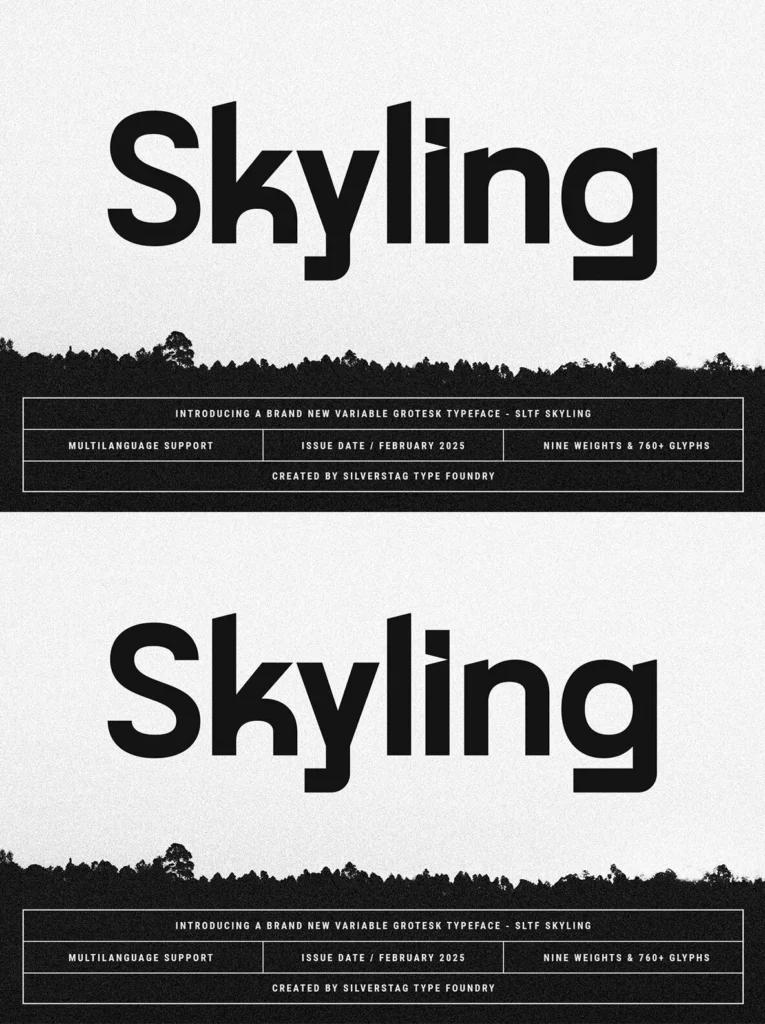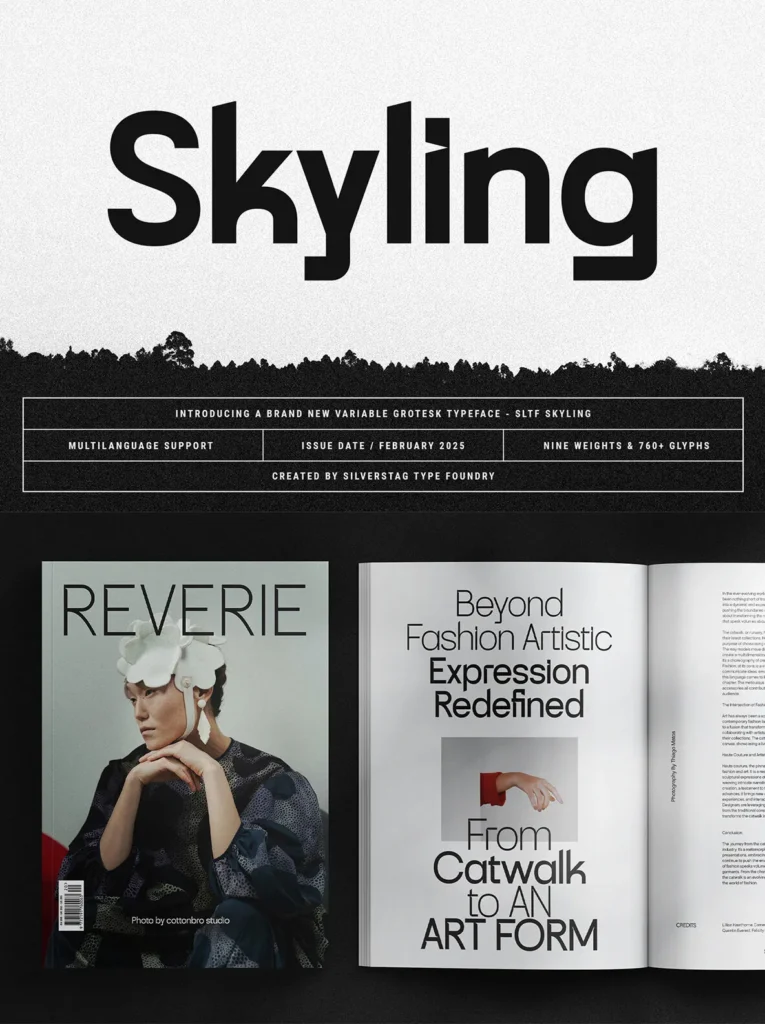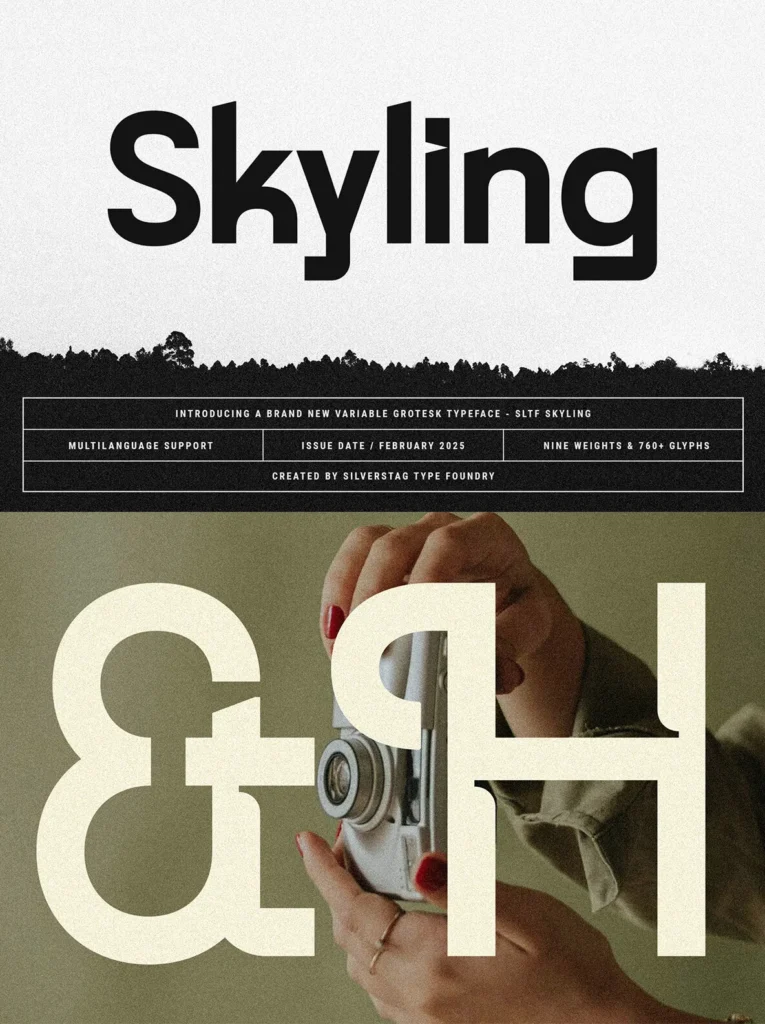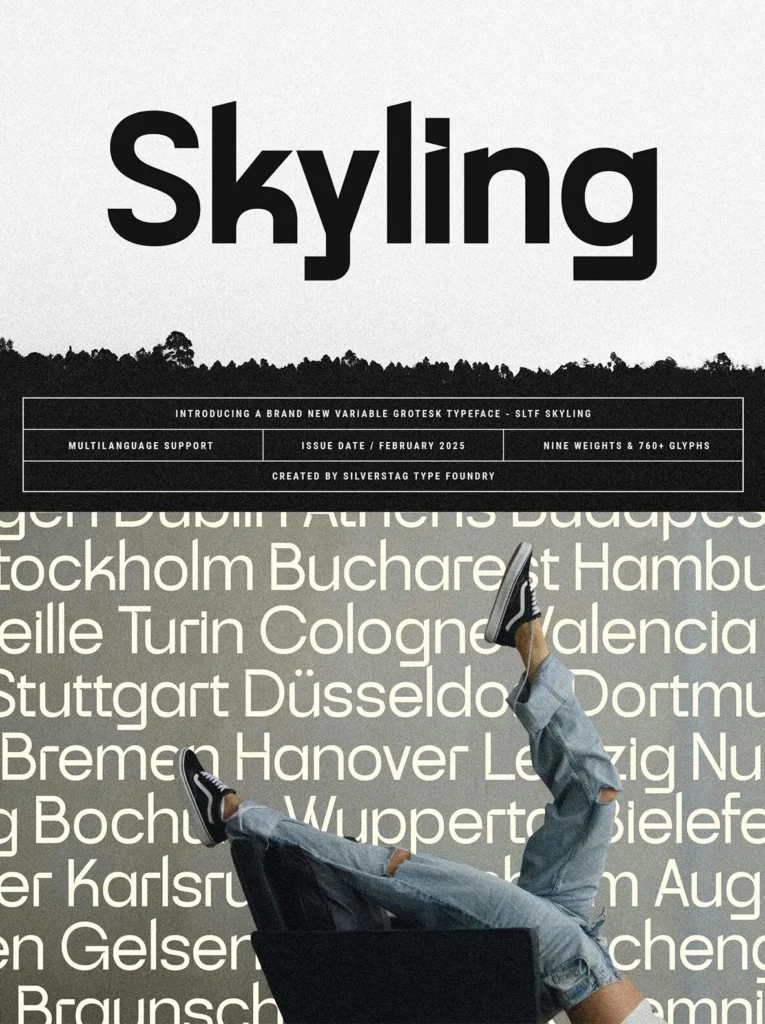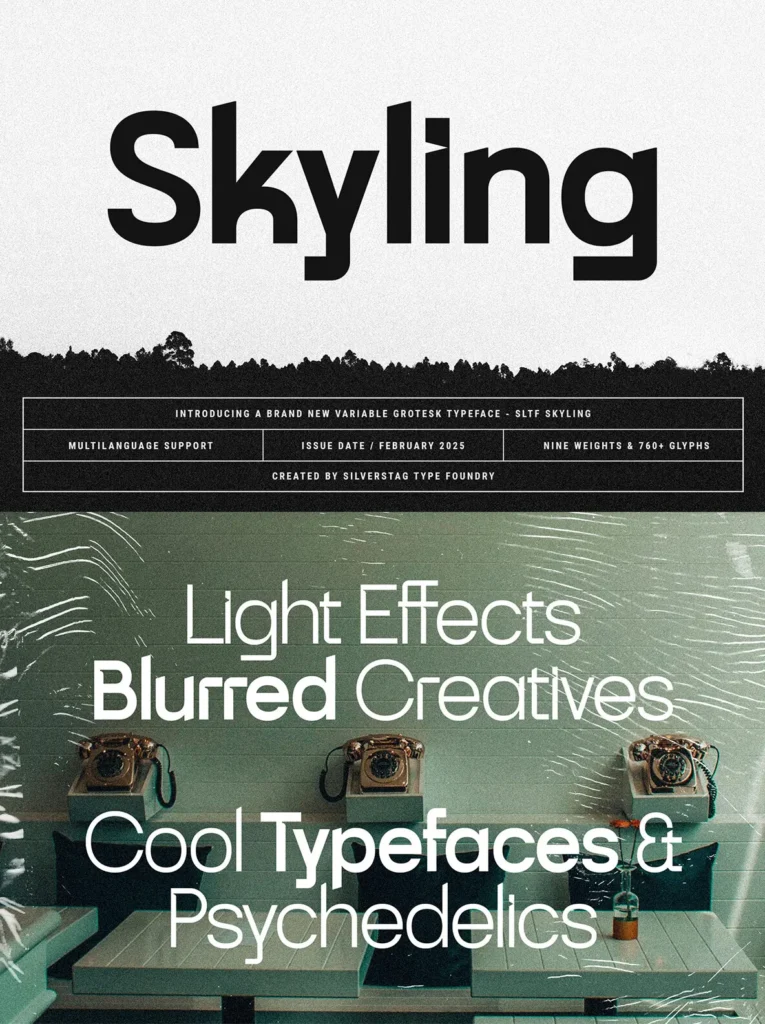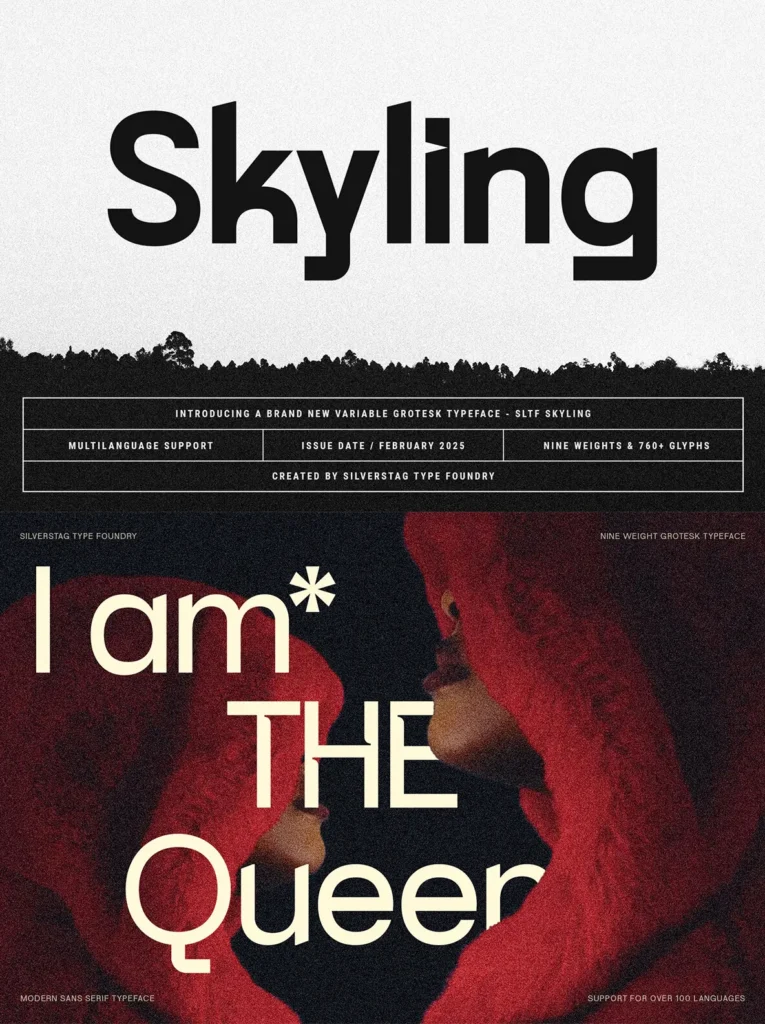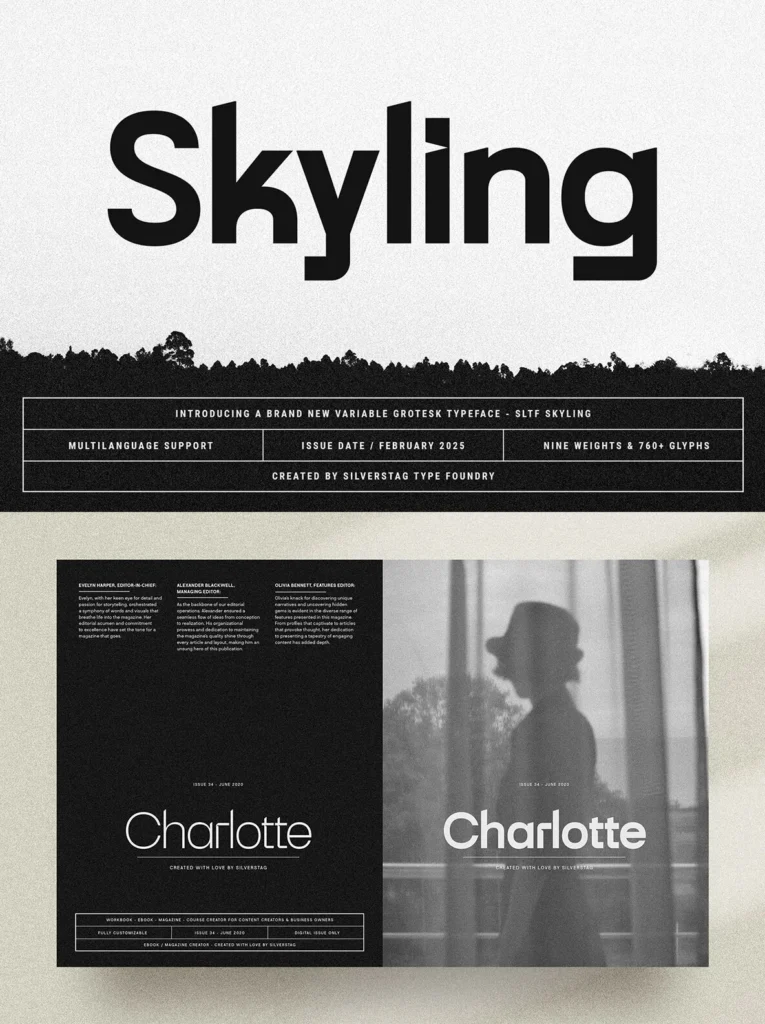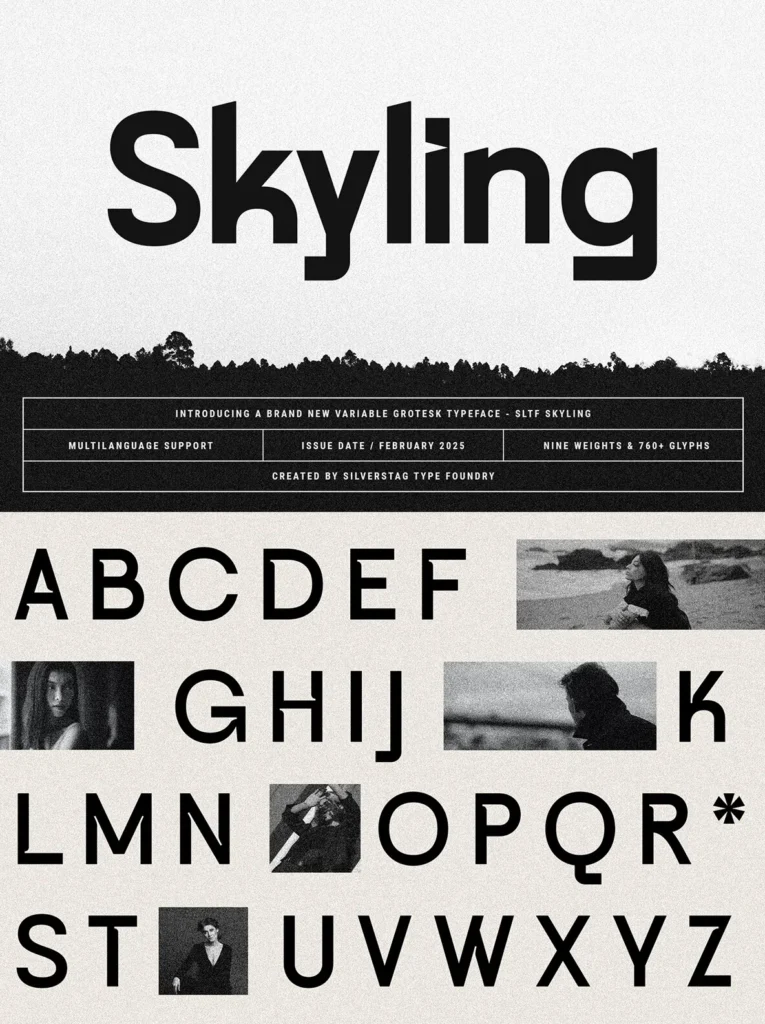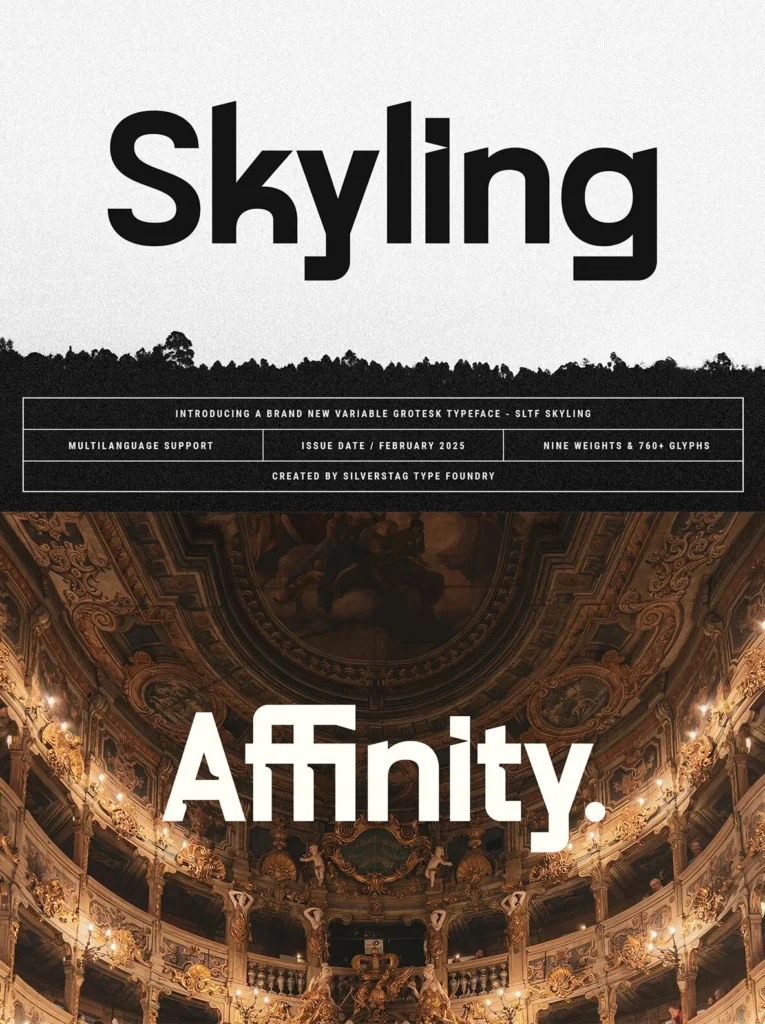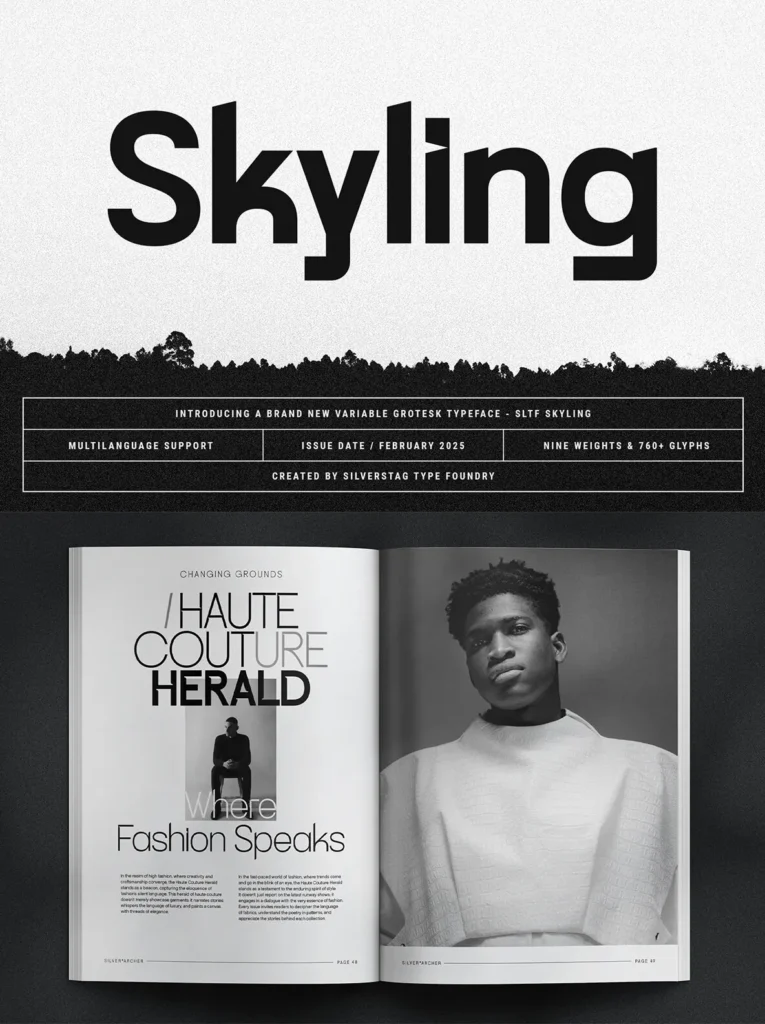
Skyling — Clean Geometry, Human Warmth
Skyling is a geometric grotesk sans serif typeface for modern creators who value precision, clarity, and style. It includes a nine-weight range from Thin to Black, plus variable font support, so you can dial in hierarchy with control. With coverage for 100+ languages, Skyling fits international brand systems, editorial workflows, and digital products without compromise.
Inspired by the clarity of classic grotesks, Skyling refines familiar forms with modern proportions and subtle details that add warmth and character. It stays clean without feeling cold, and structured without becoming rigid. The letterforms read easily at text sizes and still hold their own in display settings. Skyling also comes packed with carefully designed alternates, symbols, and OpenType features to support sharper typography across layouts.
Why Skyling?
Nine Weights + Variable Font
– Whether you need ultra-light sophistication or bold statement-making power, Skyling adjusts seamlessly to any design scenario.
Geometric Yet Humanist
– Crisp, clean shapes with just the right amount of warmth, making it versatile for both branding and editorial use.
Optimized for Screen & Print
– Whether displayed on high-resolution screens or in fine print applications, Skyling ensures readability and impact across all media.
Multi-Language Support
– With 100+ languages covered, your words will look stunning no matter where they’re read.
Modern Typographic Features
– Packed with carefully designed alternates, symbols, and OpenType features that enhance any layout.
Perfect For:
Brand Identity & Logo Design
– Ideal for clean, impactful branding that balances professionalism with character.
Web & App Interfaces
– Optimized for UI/UX, ensuring clarity in digital environments and across devices.
Editorial & Print Design
– From magazines to posters, Skyling’s precise letterforms bring text to life with effortless readability.
Packaging & Advertising
– Stand out on the shelves or in campaigns with Skyling’s bold, eye-catching presence.
Skyling isn’t just another sans serif—it’s a foundation for modern design. Whether you’re building a sleek corporate identity, shaping editorial pages, or designing an immersive digital experience, Skyling brings the balance of precision and personality that contemporary typography demands.